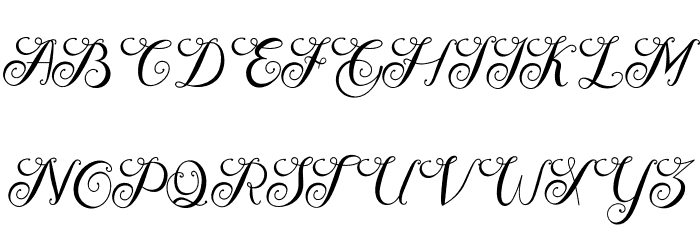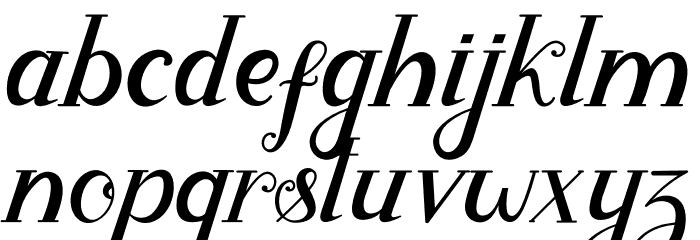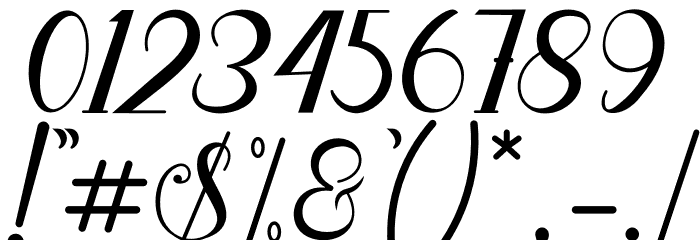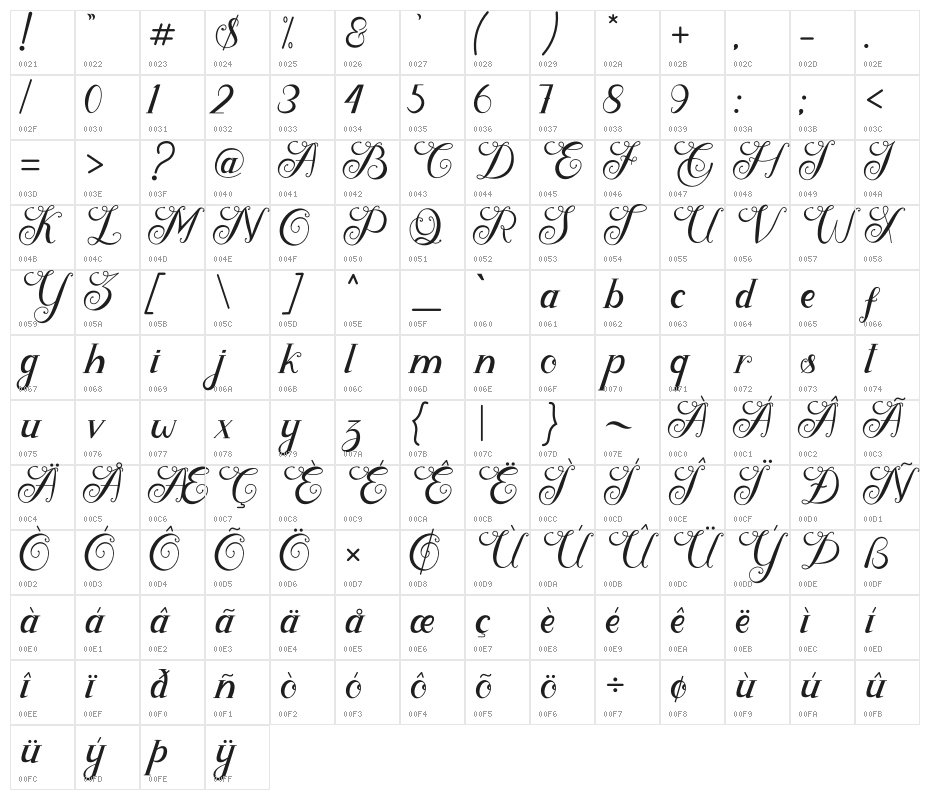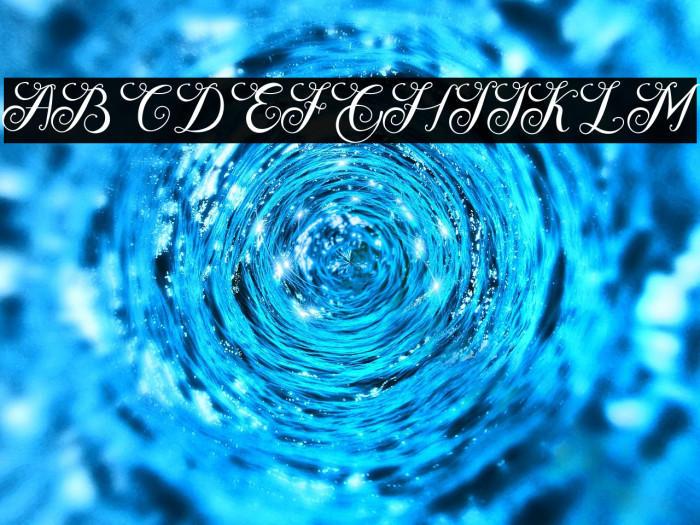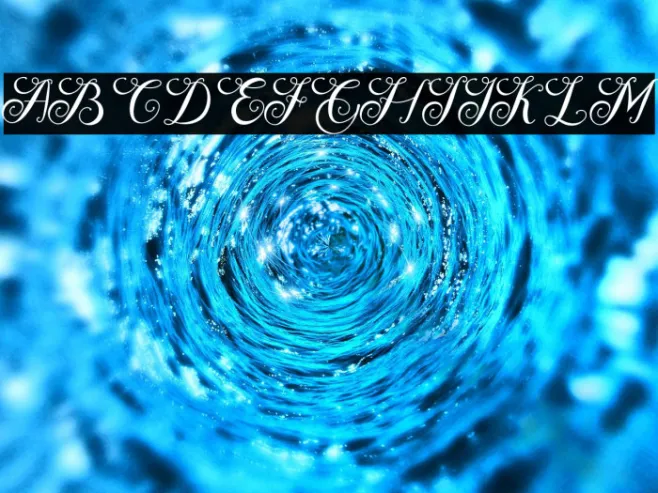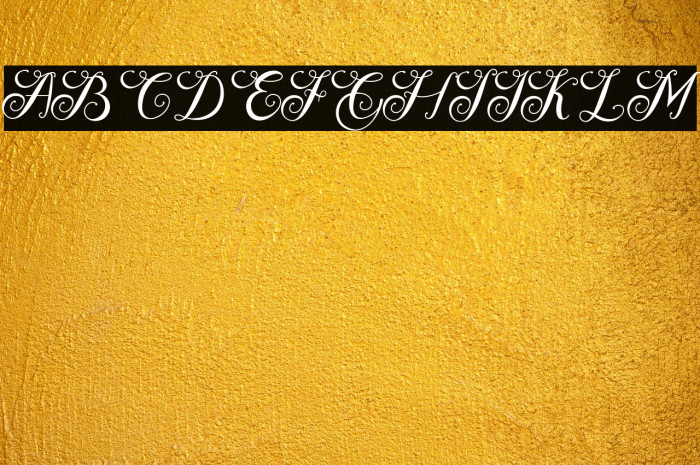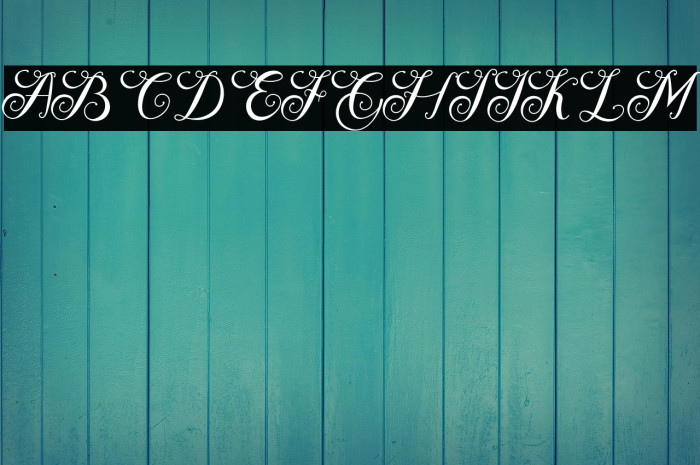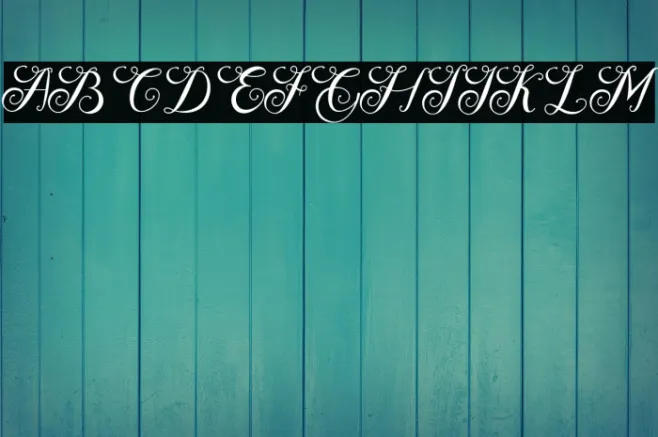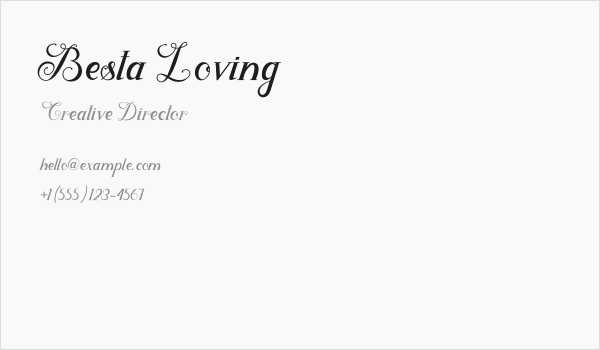
Besta Loving Font
This elegant font features a sophisticated blend of script and serif styles. The uppercase letters are adorned with intricate swirls and loops, giving them a decorative and ornate appearance. The lowercase letters maintain a more traditional serif style, offering a nice contrast with their clean and smooth lines. The numerals are sleek and slightly elongated, adding to the font's refined aesthetic. Special characters are designed with the same attention to detail, ensuring consistency throughout. This font is perfect for projects that require a touch of elegance and sophistication.
A sophisticated blend of script and serif styles with ornate uppercase and sleek lowercase letters.
- Font: Besta Loving
- Proposed Projects: Ideal for wedding invitations, luxury branding, elegant packaging, and high-end editorial design.
- Category: Script
- Overall Style: Elegant
- Use Case: Headlines, Invitations, Branding